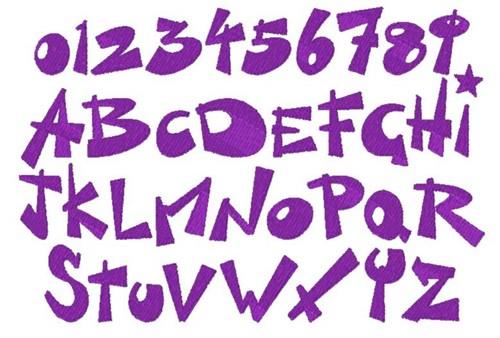
Star Gaze Embroidery Font - Decorative Playful Lettering - Home Format - PES, DST & 9 formats by Unicorn Creatives and other embroidery fonts available at EmbroideryDesigns.com.
Unicorn Creatives is happy to present Star Gaze Embroidery Font - Decorative Playful Lettering - Home Format - PES, DST & 9 formats machine embroidery font which has Star Gaze decorative machine embroidery font showcases bold letters with playful angles, perfect for lively designs on cushions and wall art. Available in formats including DST, PES, and more. included. If you would like to view more embroidery fonts and alphabets please search our embroidery fonts page.